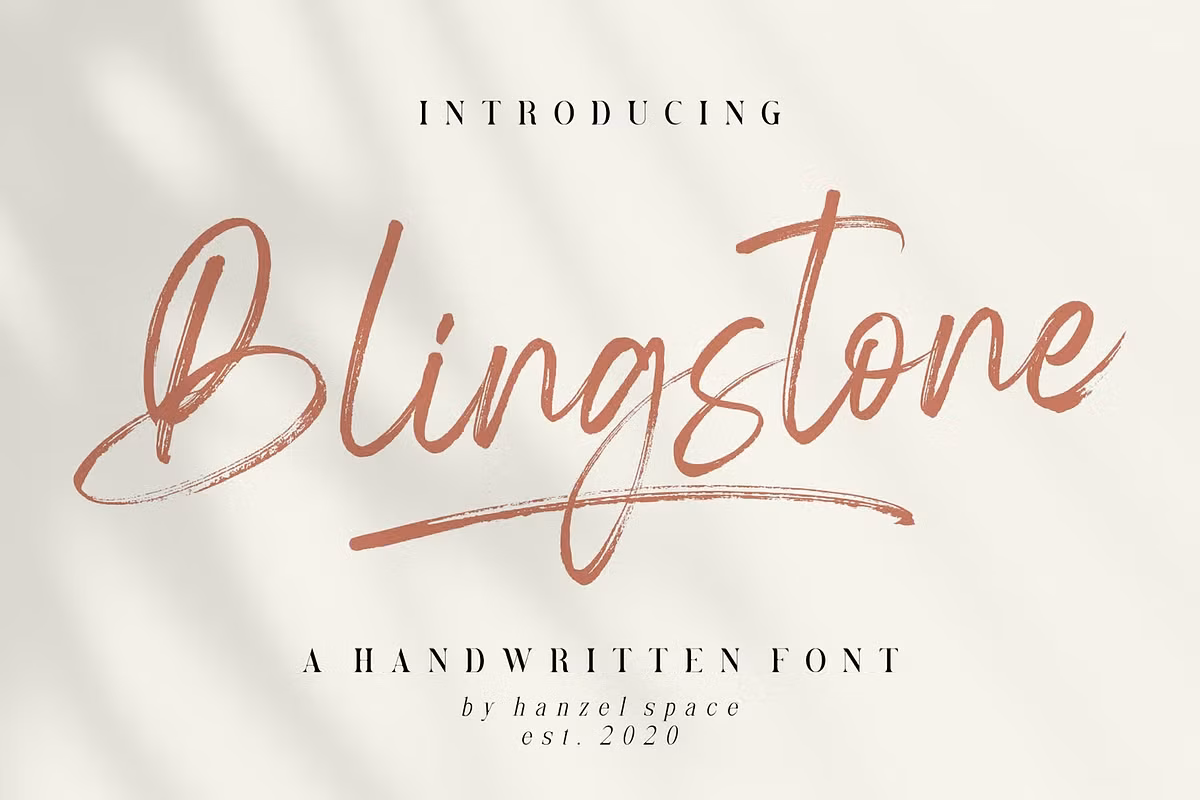
Blingstone - Handwritten Font Free Download
Please note, to use this font for commercial purposes, you must purchase the full version. Blingstone is a charming handwritten font that adds a personal and artistic touch to your designs. With its flowing letterforms and elegant style, this font is perfect for logos, invitations, branding, and creative projects that require a warm, authentic feel. Whether you're designing for a personal project, a casual brand, or a special event, Blingstone brings a unique and artistic flair to your work. Test it out and enjoy free download access for personal use. Experience the beautiful, handwritten style of Blingstone - Handwritten Font Free Download before purchasing the commercial license. Add a creative, personal touch to your designs with Blingstone.